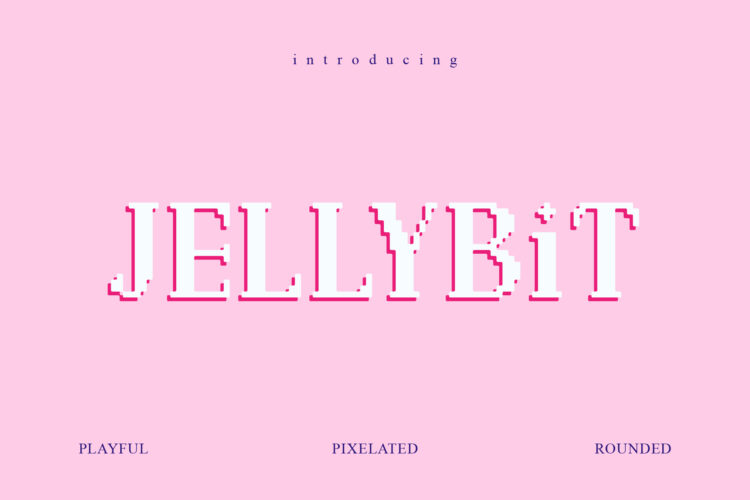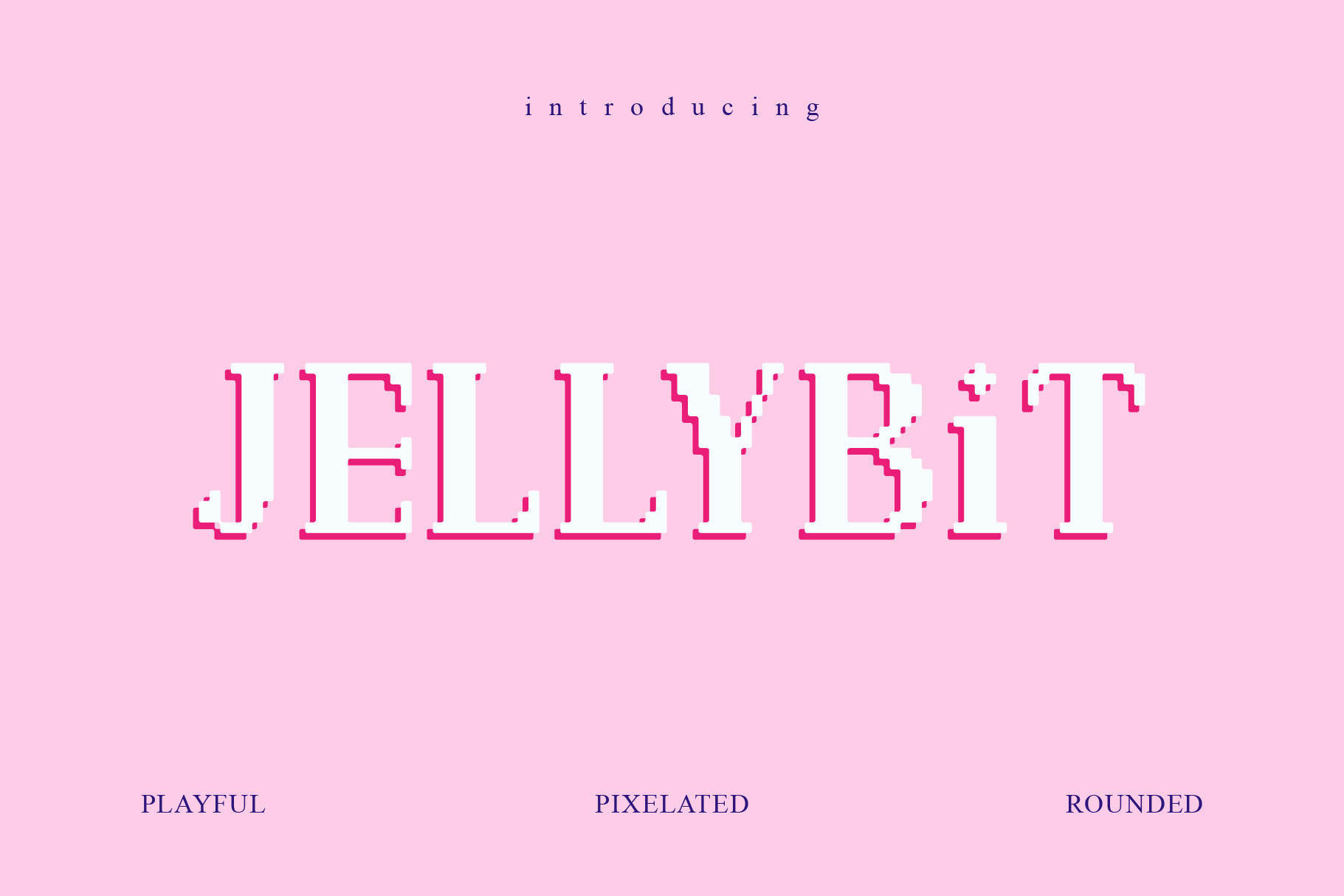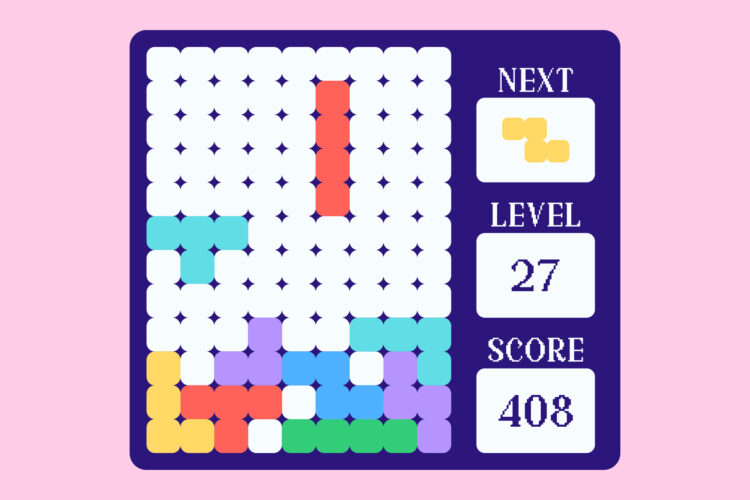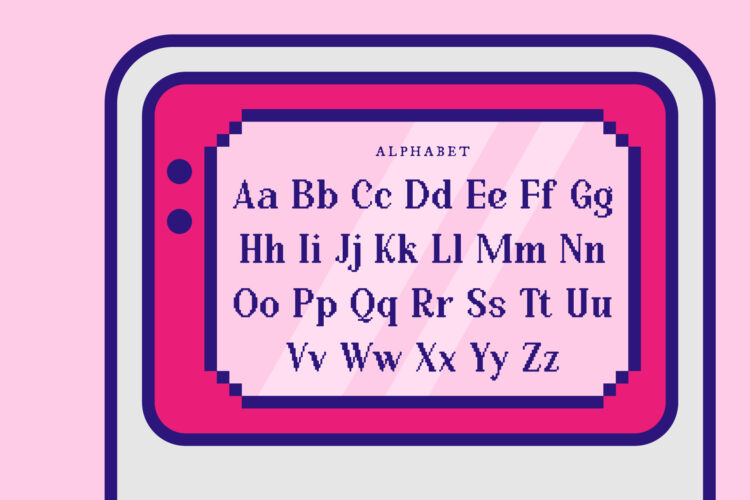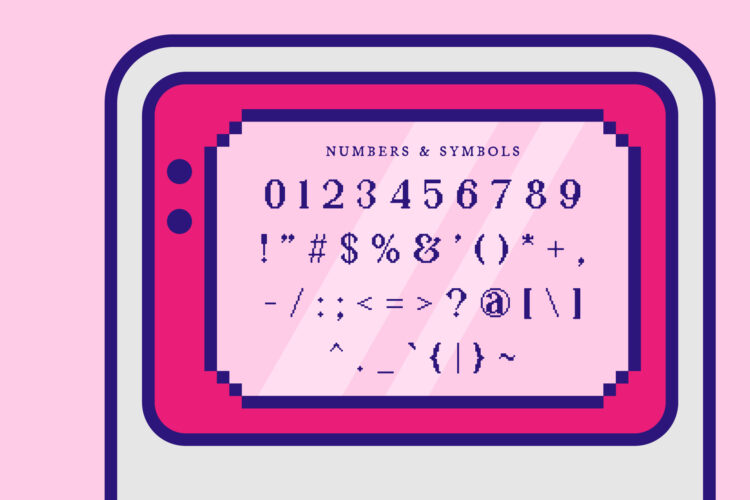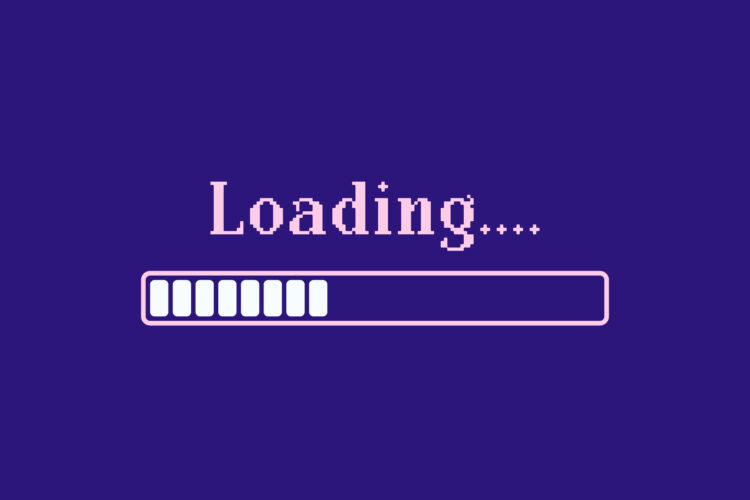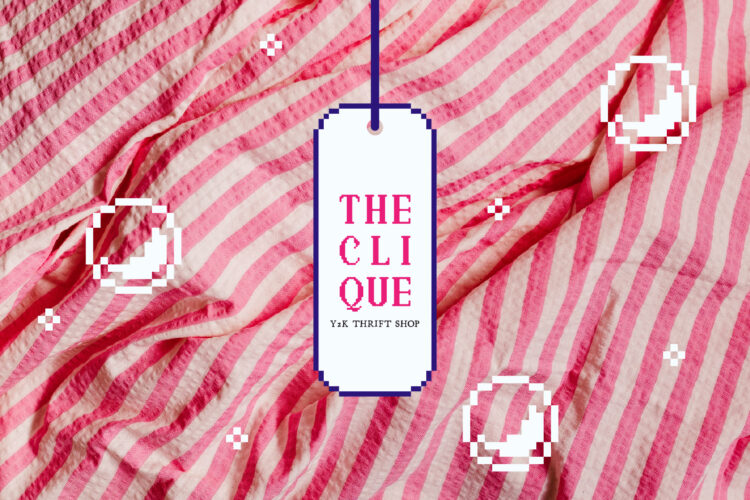
Jellybit
PGR Jellybit is a playful Y2K pixel display font designed to make your projects look bolder, cooler, and impossible to ignore. With its nostalgic digital aesthetic and standout pixel style, this font is perfect for adding personality to any creative work.
Ideal for branding, posters, packaging, merchandise, social media, gaming visuals, websites, and other creative projects that need a unique and eye-catching look.
Features:
• Complete alphabet (uppercase & lowercase)
• Numbers
• Basic punctuation
• Bold Y2K pixel display style
PGR Jellybit – Pixelated Font